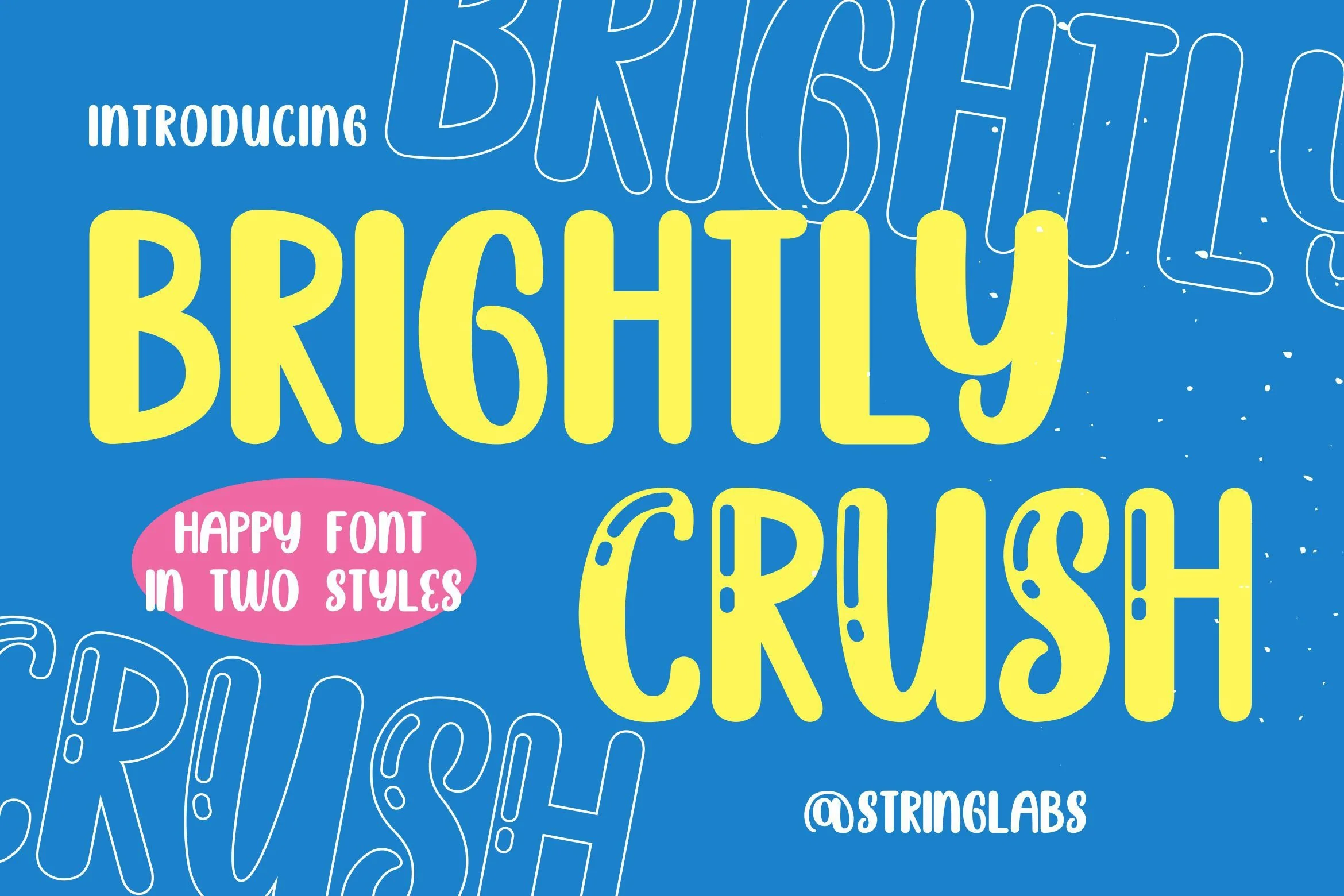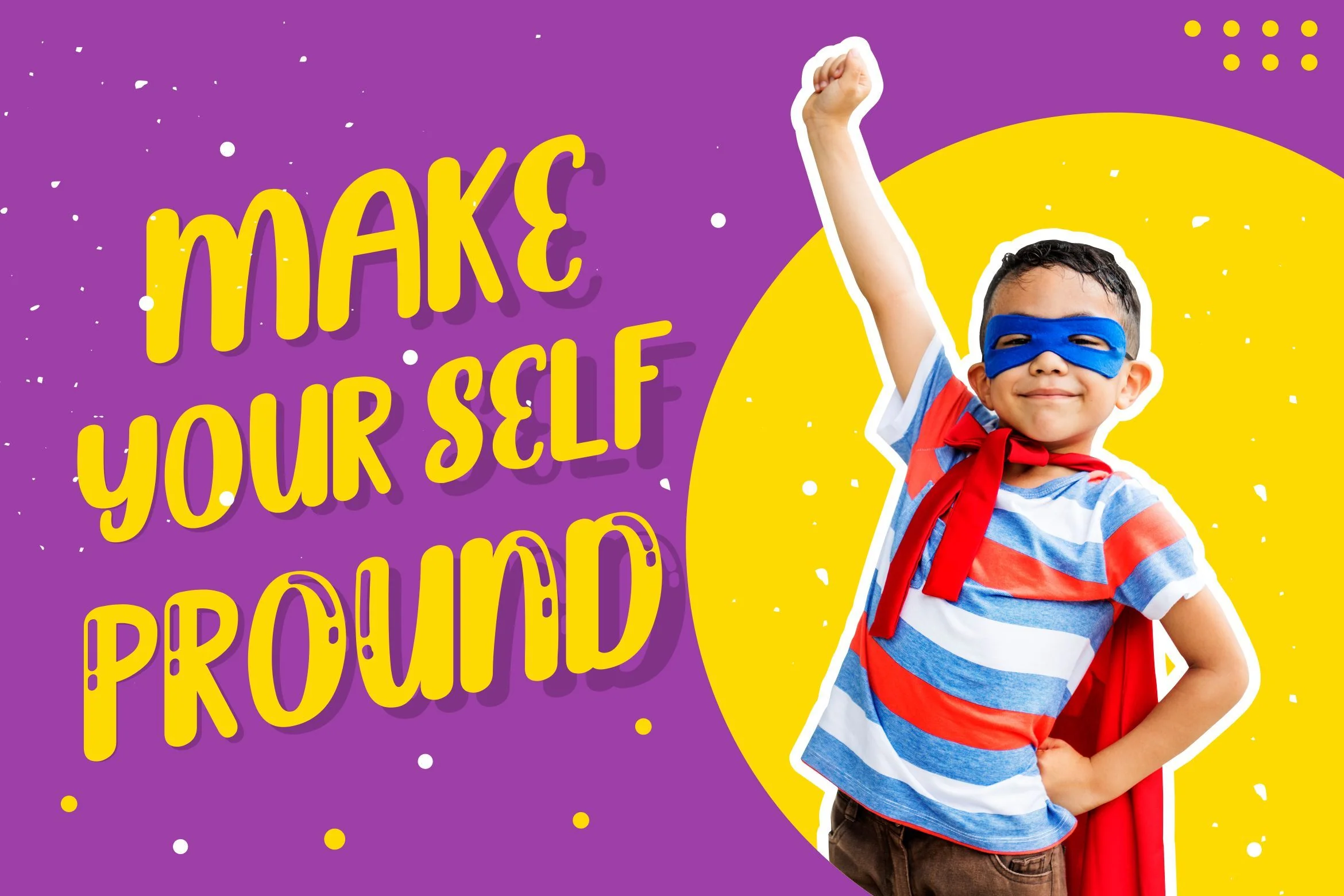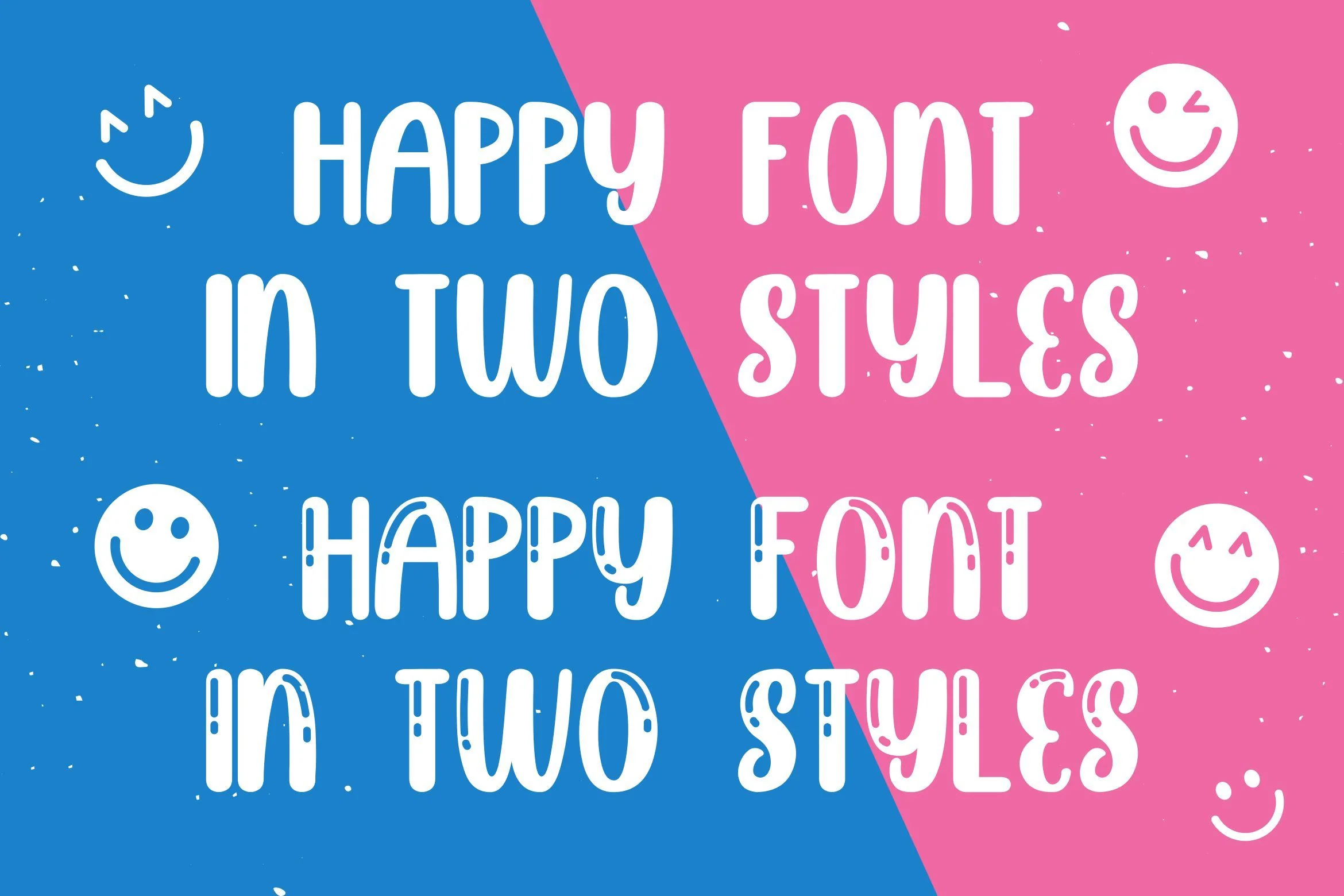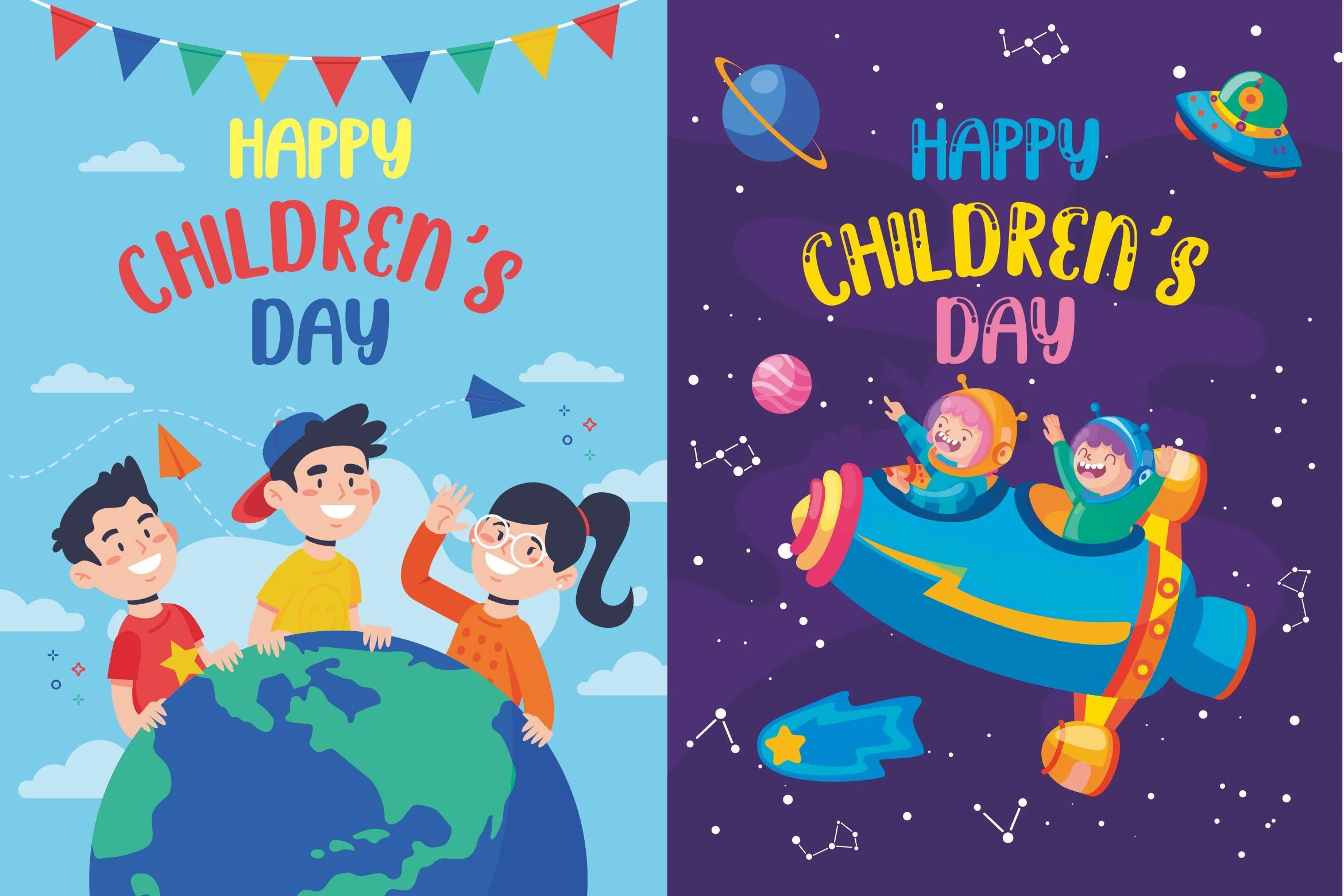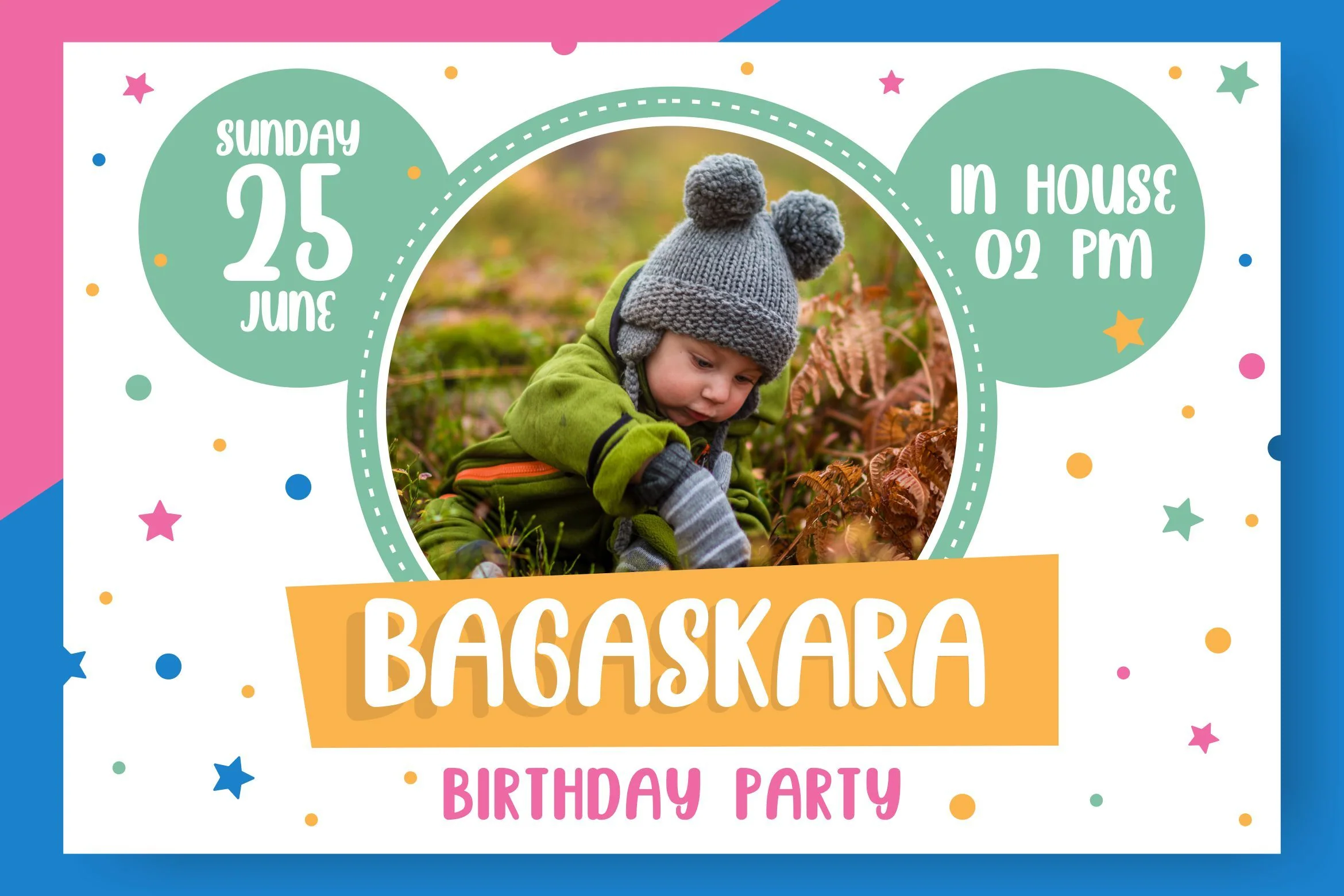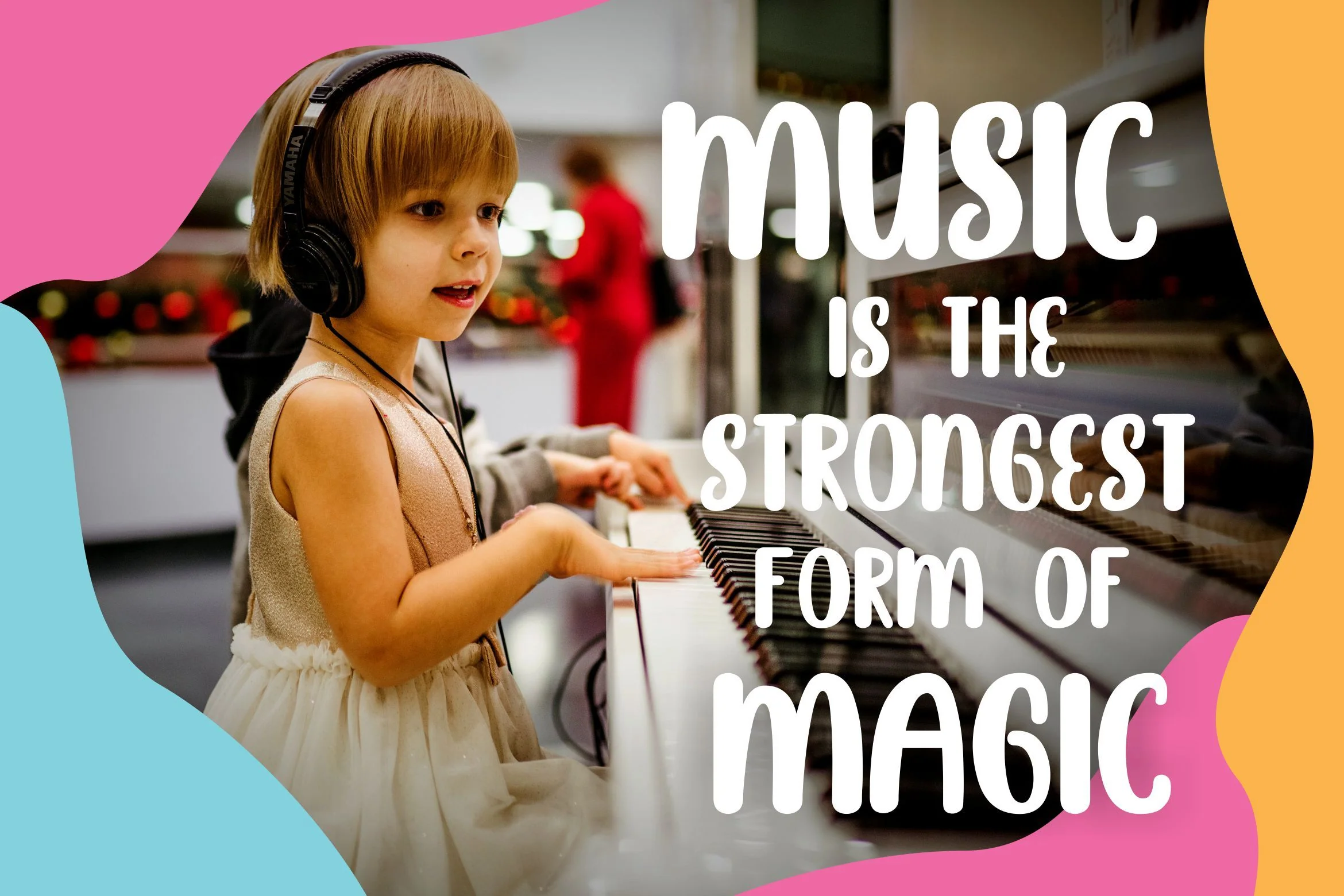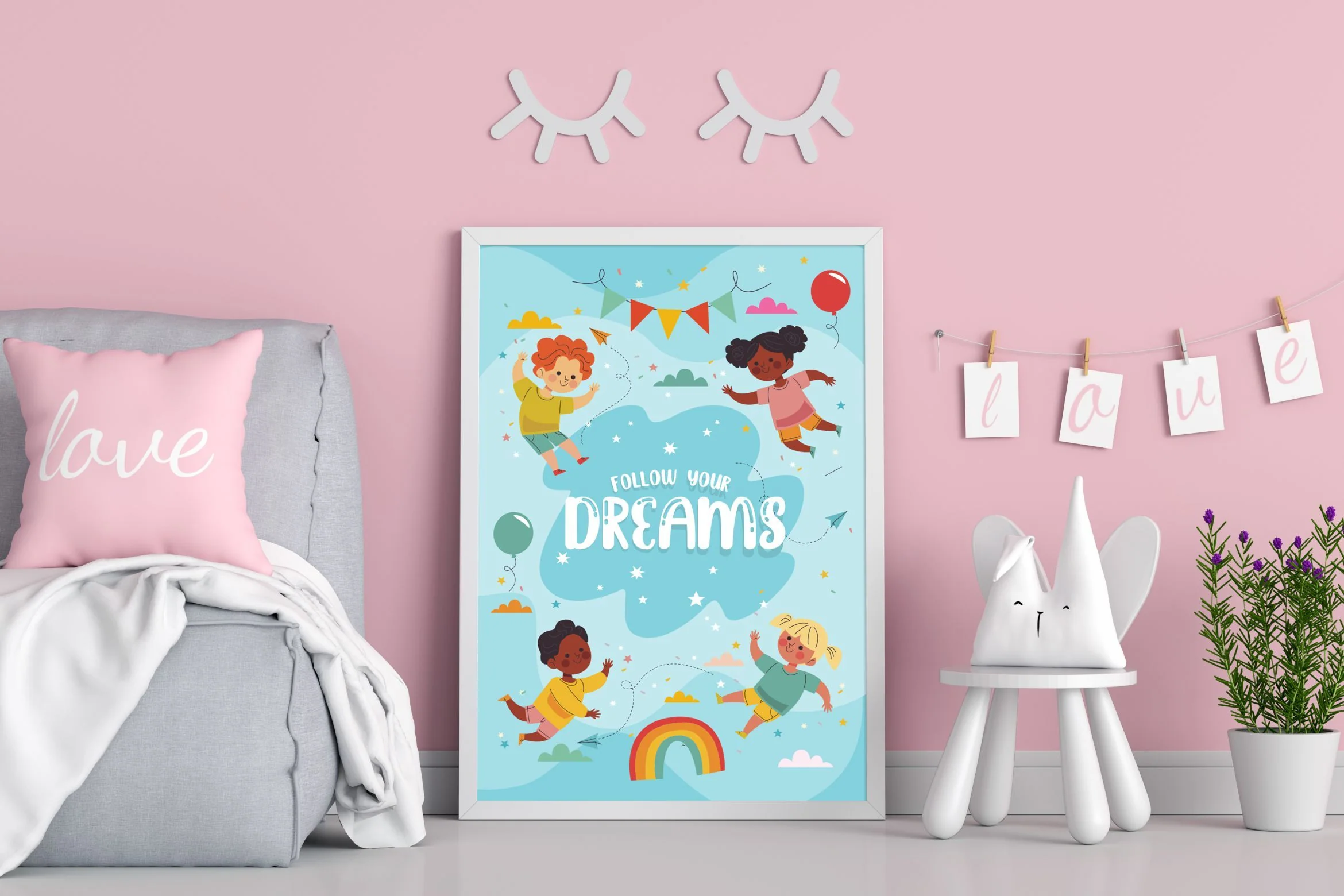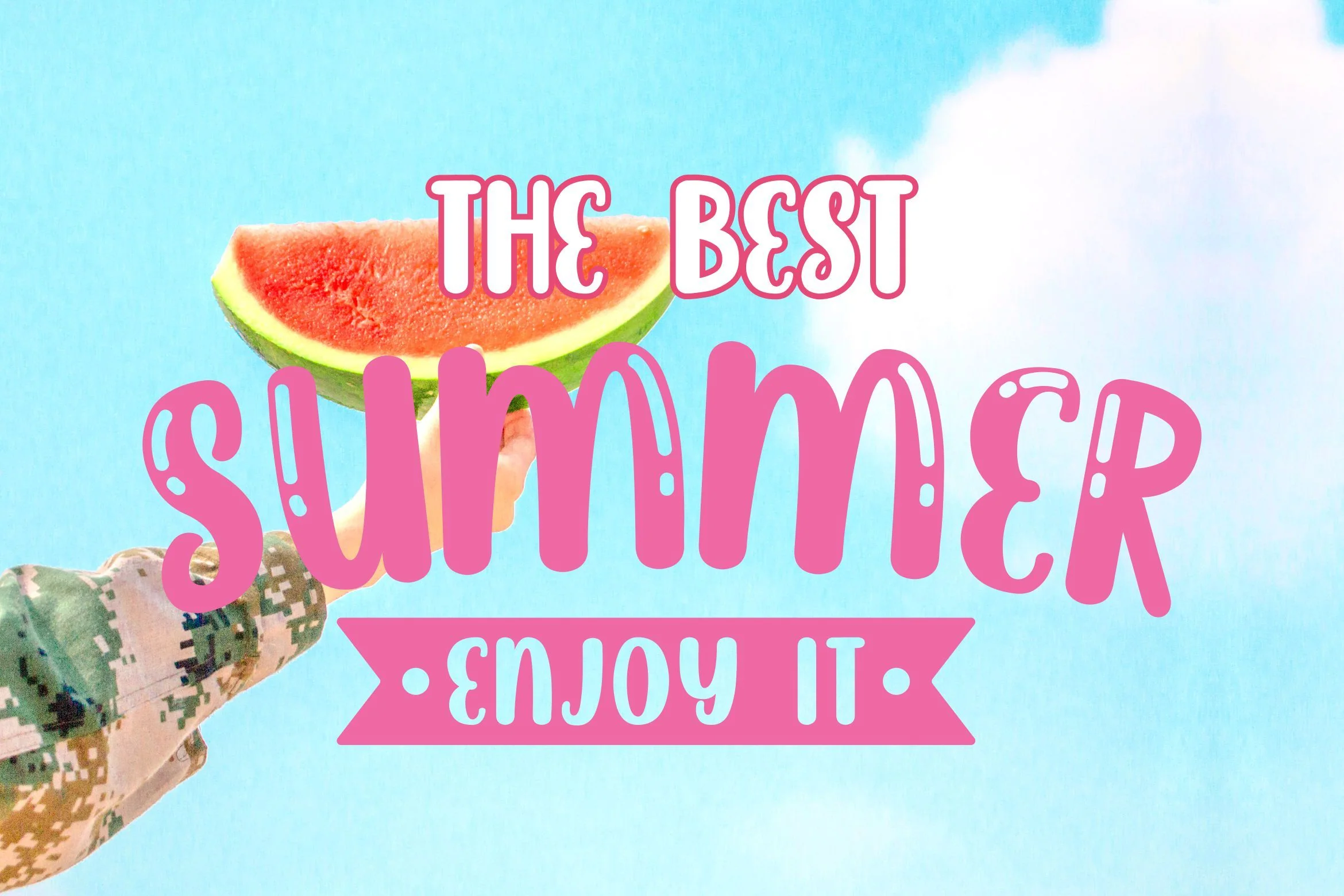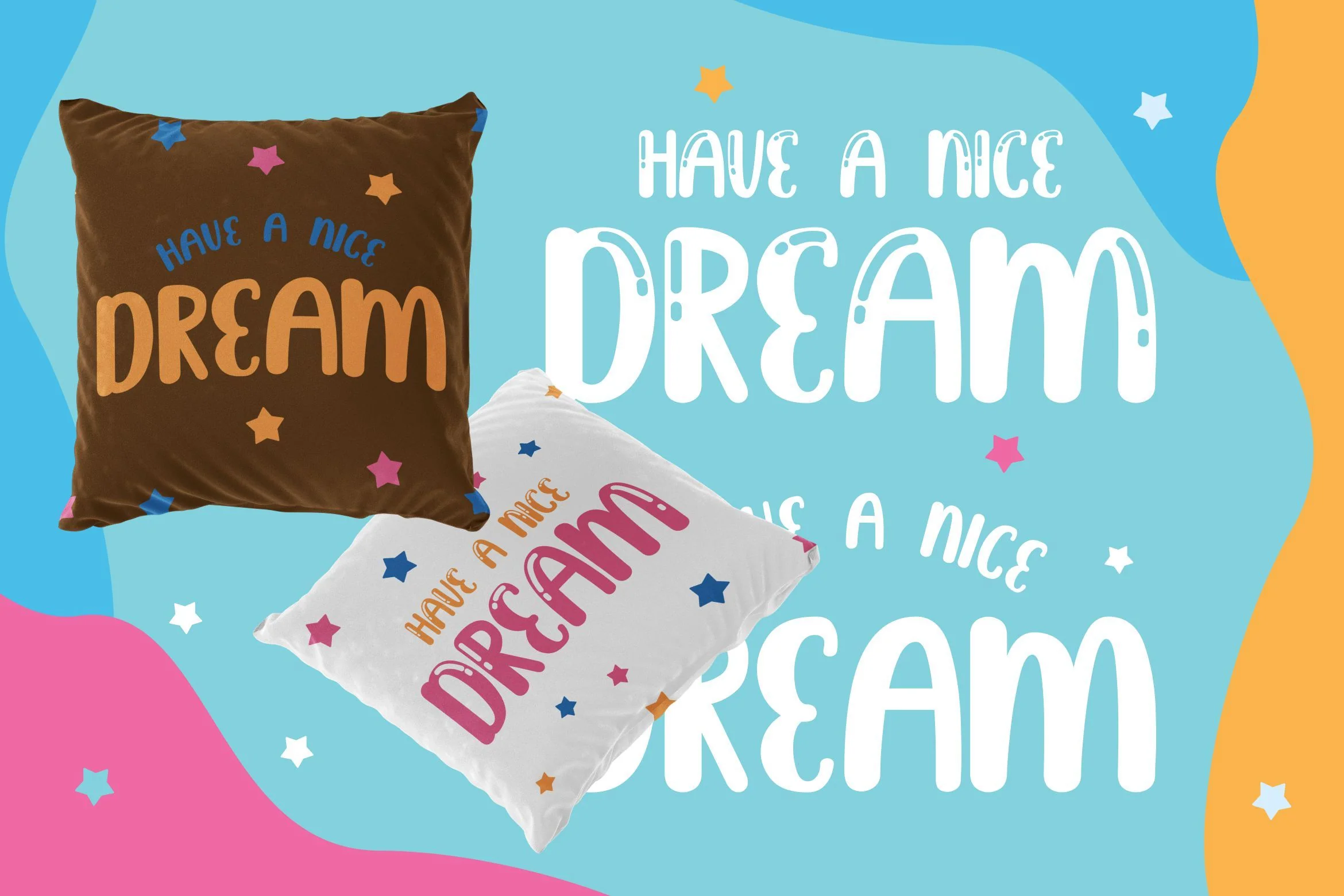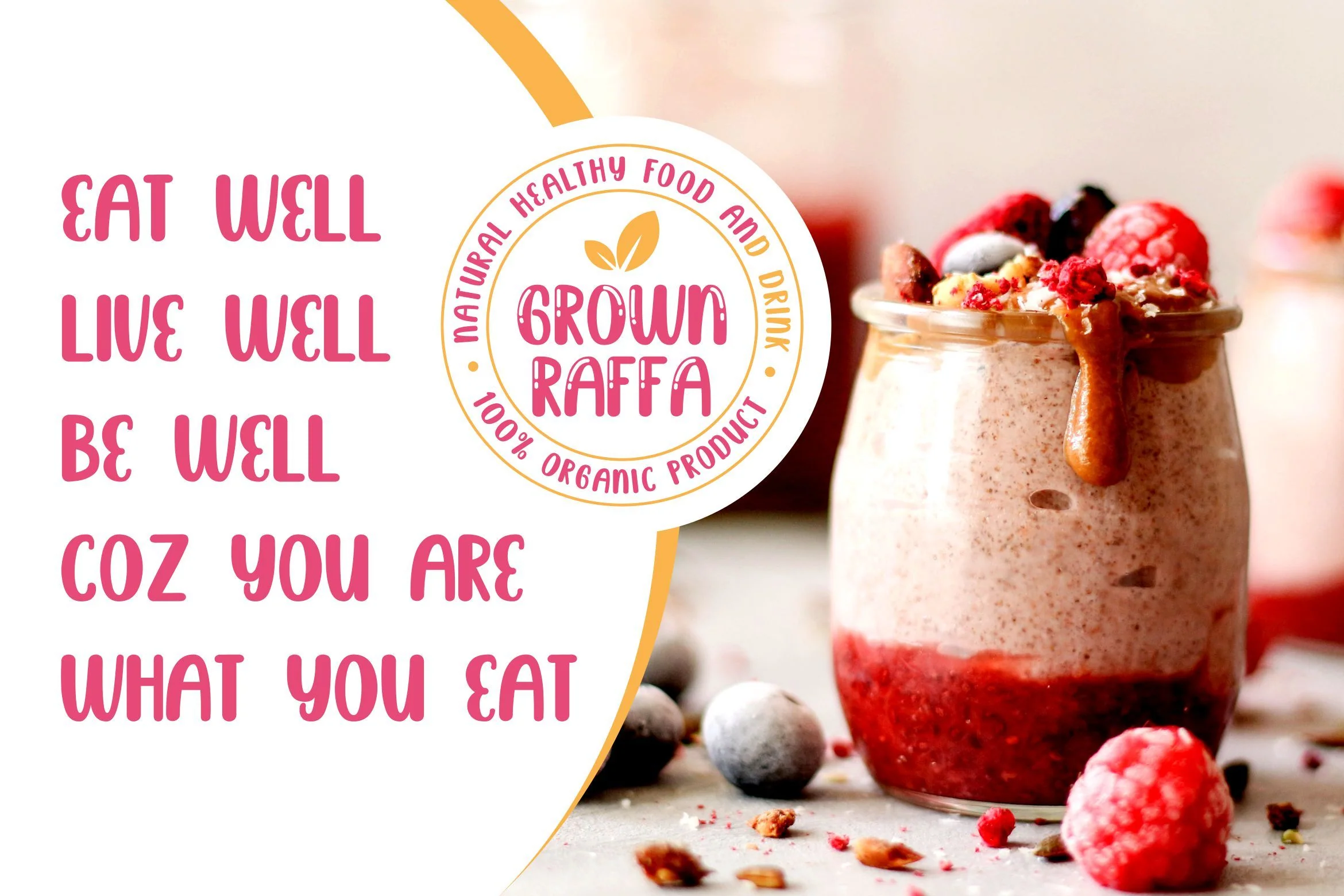
Brightly Crush - Playful Typeface
Introducing Brightly Crush - Playful Typeface
This font is perfect for those of you who want the style of children. Fonts Made specifically for purposes such as: Kindergarten, Birthday, Kid, Cartoon, Comic, Children, and Playful.
This Font Template contains Modern, Elegant, Creative, Professional and Unique Concept.
- Two Style: Regular and Shine
Introducing Brightly Crush - Playful Typeface
This font is perfect for those of you who want the style of children. Fonts Made specifically for purposes such as: Kindergarten, Birthday, Kid, Cartoon, Comic, Children, and Playful.
This Font Template contains Modern, Elegant, Creative, Professional and Unique Concept.
- Two Style: Regular and Shine